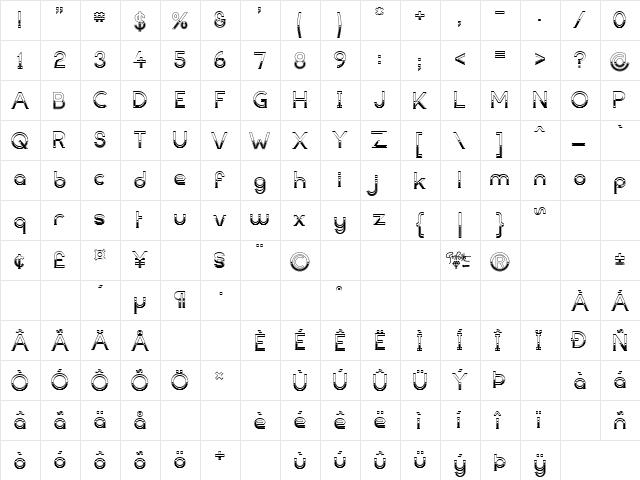
Dark Bastion Sinister Regular
Design Context for Dark Bastion Sinister Typeface
Dark Bastion Sinister is a composed and adaptable typeface that performs quietly and consistently across a wide range of design contexts.